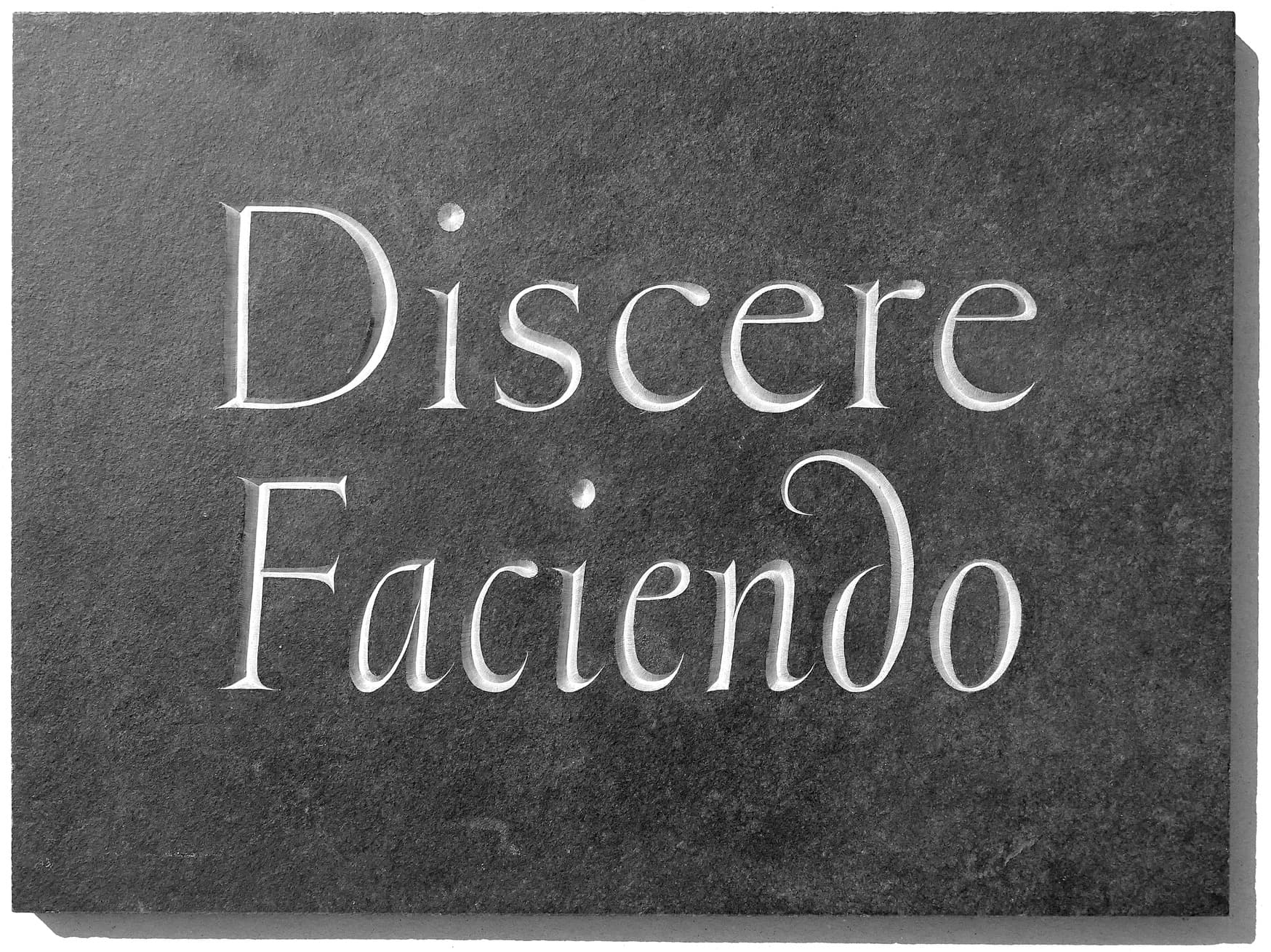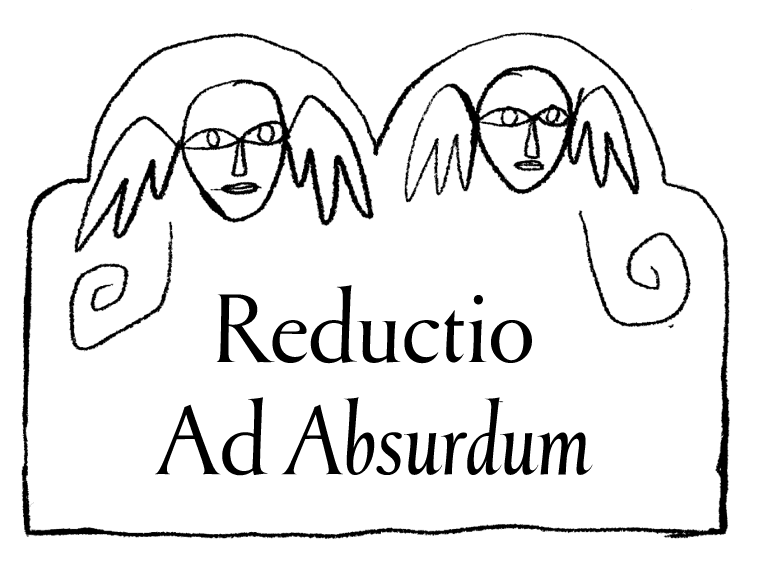
About Greenstone
Greenstone interprets Oscar Ogg’s vernacular lettering style through the lens of American and British stone carving, such as the work of John Howard Benson and David Kindersley. The connection between these sources is reminiscent of the intercultural dialogue between the American and British type design industries in the 19th to 20th centuries, a period when many designers were drawing influence from their peers across the Atlantic. While perfectly serviceable as a model alphabet for carving in stone, Greenstone is a typographic expression of an ancient and sacred tradition of lettering, in which the plethora of exquisite vernacular styles have developed over the centuries thanks to the improvisational nature of use-specific composition.
Greenstone Construction
Over the course of his research for this typeface, Davenport toured numerous cemetery grounds in the American Northeast, observing the evolution of the stylistic zeitgeist through the lettering models used in the carvings that still withstand the test of time. He also dug through the studio’s Oscar Ogg archive and unearthed a series of plaques that the master lettering artist designed for the US Maritime Commission during his time in Fredericksburg, Virginia. These typographic examples are most evident in Greenstone’s large, flaring capitals and its delicate, expansive serifs.
While brushed letterforms existed as early as the ancient Roman period, the 20th century witnessed a renewed appreciation for these letterforms, seen on book jackets and a plethora of designed goods. The stout low-contrast horizontal strokes and the delicate high-contrast serifs produced by the flat brush eventually served as the basis of Roman stone inscriptions. Edward Catich has written extensively about the relationship and lineage between these two practices in his book The Origin of the Serif.
Greenstone Italic
Greenstone consists of two styles: a Regular that has an almost imperceivable slant of 2° and an Italic that has a slant of only 5°. In a “typical” typeface family the Italic could be anywhere from 6–20° steeper than the roman, but Greenstone delights in these subtle differences. Greenstone’s Italic is constructed with a more fluid ductus similar to that of a flat-brushed letter or even a broad-nib pen at small sizes — the extremely condensed lowercase emphasizes the drastic contrast when set with the roman.
Tapping into an ancient craft
Compared to letters produced by the brush, stone-carved letters are produced inside-out — requiring a sense of depth and rhythm. The center-line is cut first, then the carver makes v-cuts with a chisel. A measured rhythm is needed to keep cuts evenly deep and at the same angle. When cut correctly, the letters contour themselves, defined not by an outline but by their own highlights and shadows.
By virtue of stone carving’s handmade process, letters are charmingly imperfect. The idiosyncrasies found in Greenstone’s letterforms are a product of these one-of-a-kind use-specific styles. Greenstone is also informed by the dichotomy between addition and subtraction unique to Oscar Ogg’s distinct lettering technique. Known as the “King of White” due to his use of white corrective paint, Ogg would progressively add to his surface to build up his letterforms. In contrast, the process of carving constantly removes material from the surface of the stone to create the subject. Greenstone brings together the charm of Ogg’s hand with the tactile materiality of this centuries-old lettering practice.
For the release of Greenstone, our resident stonecarver My-Lan Thuong cut this piece into slate. You are of course welcome to use Greenstone as an exemplar for your next monumental inscription, but as master stonecarver Nick Benson was quick to remind us: a true stonecarver draws their own!